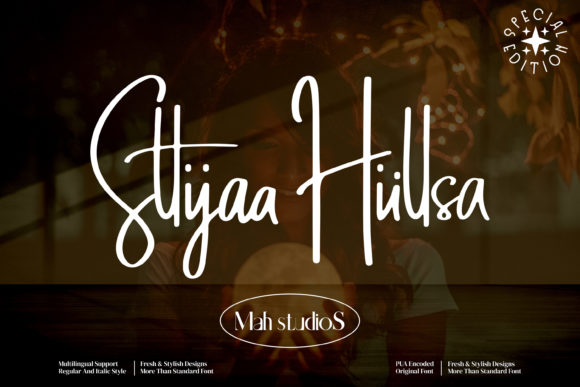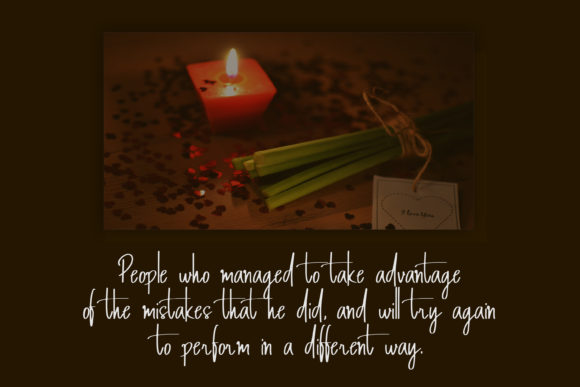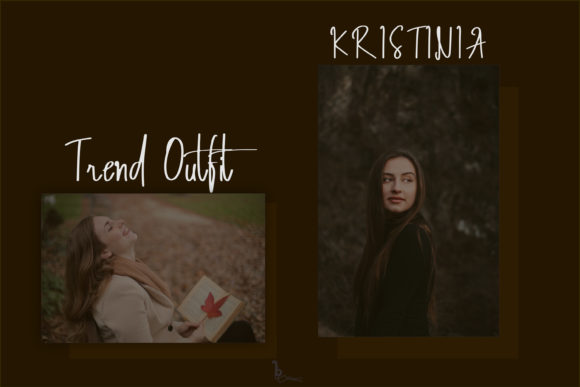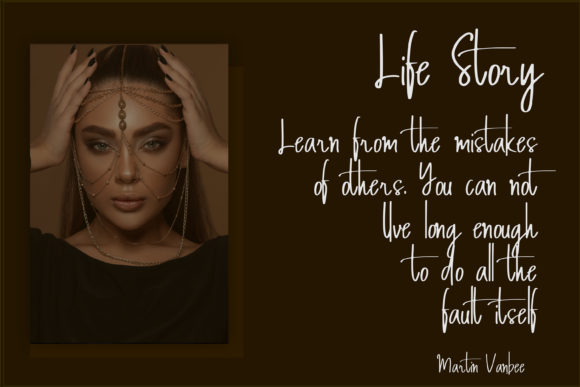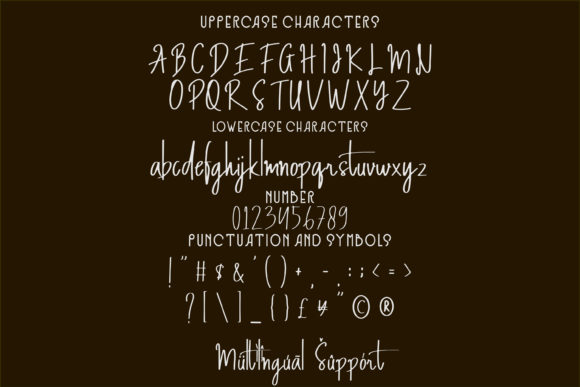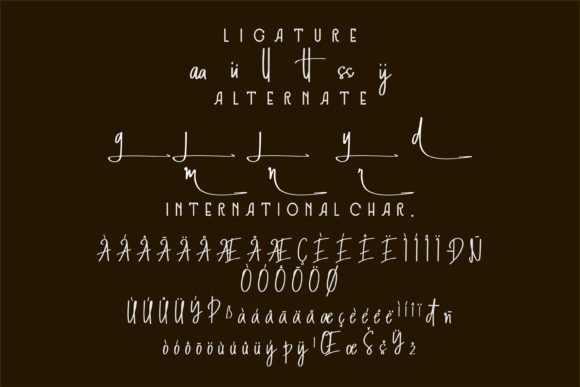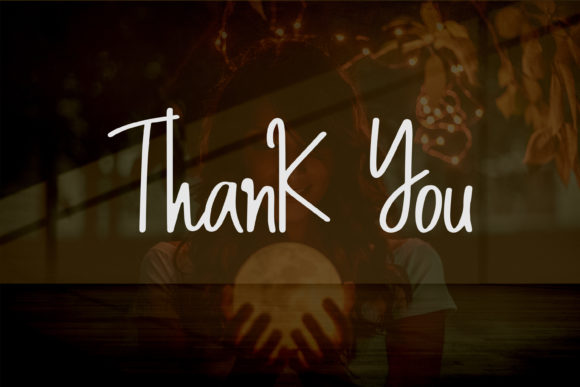
About Sttiiyaa Hiillsa Font
Sttiiyaa Hiillsa is a delicate and elegant handwritten font. Its distinct and well balanced letters make this font a masterpiece. Fall in love with its incredibly versatile style and use it to create spectacular designs!